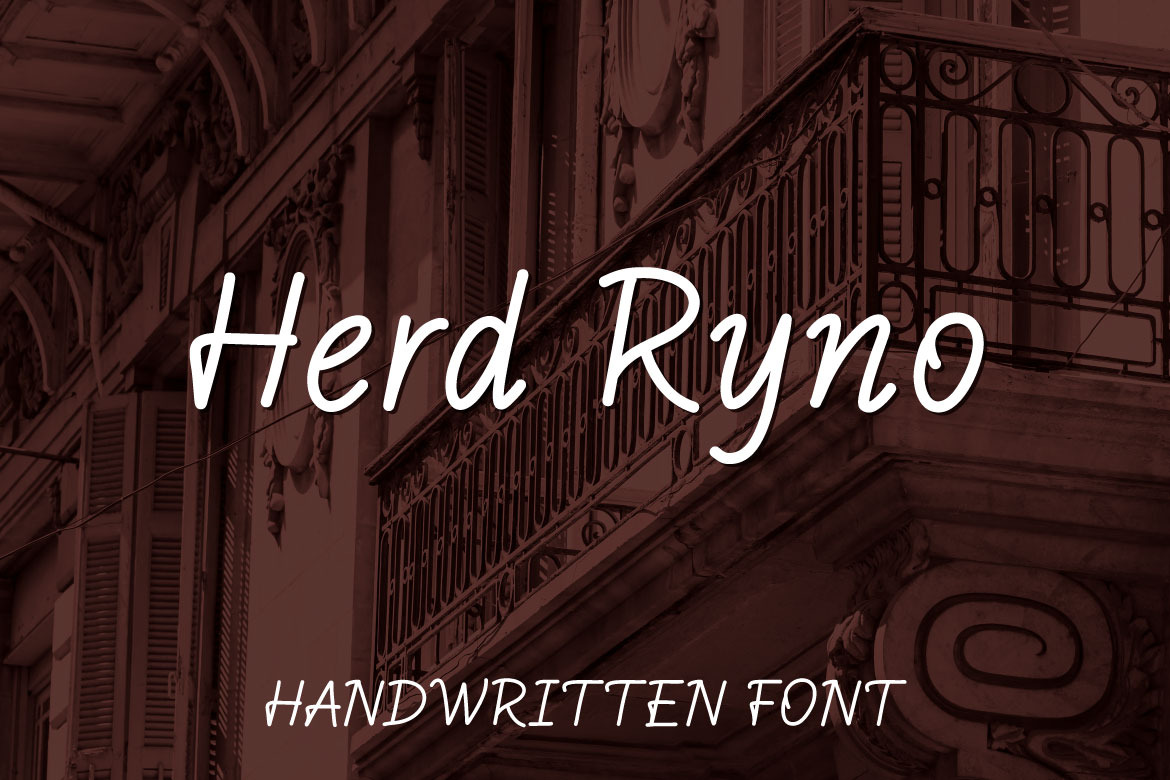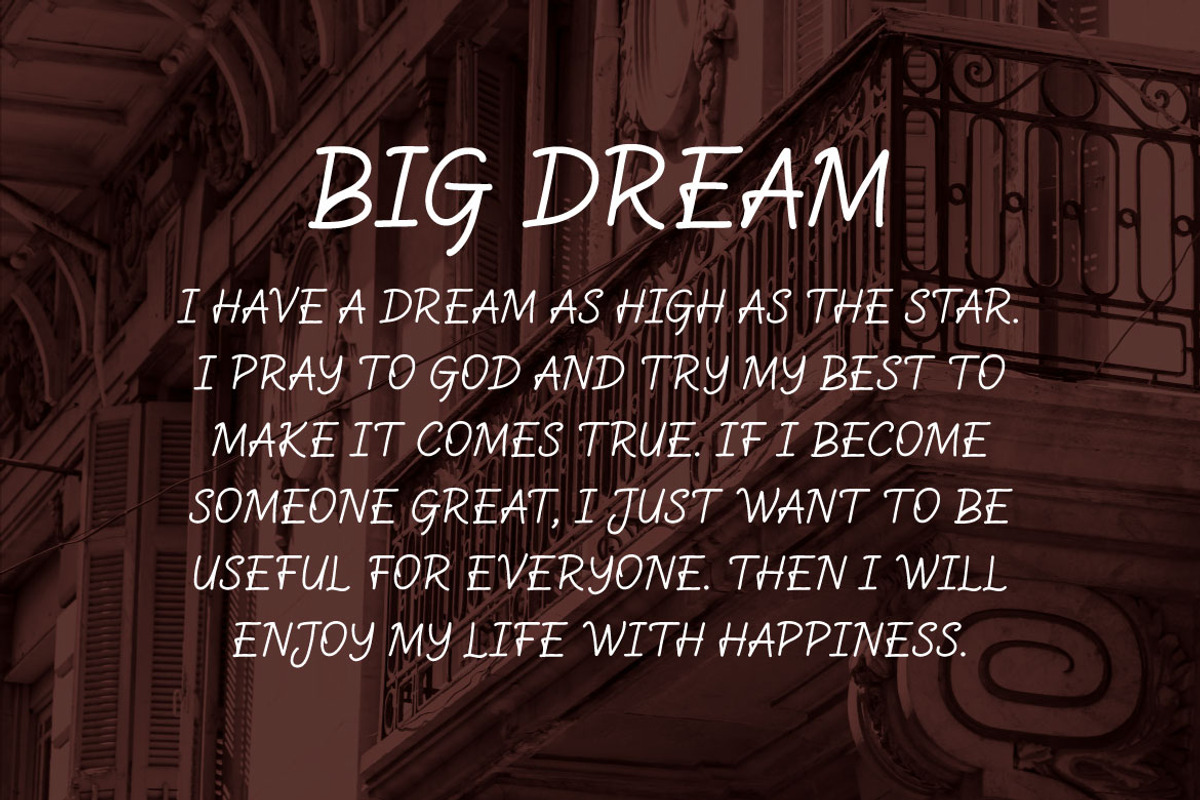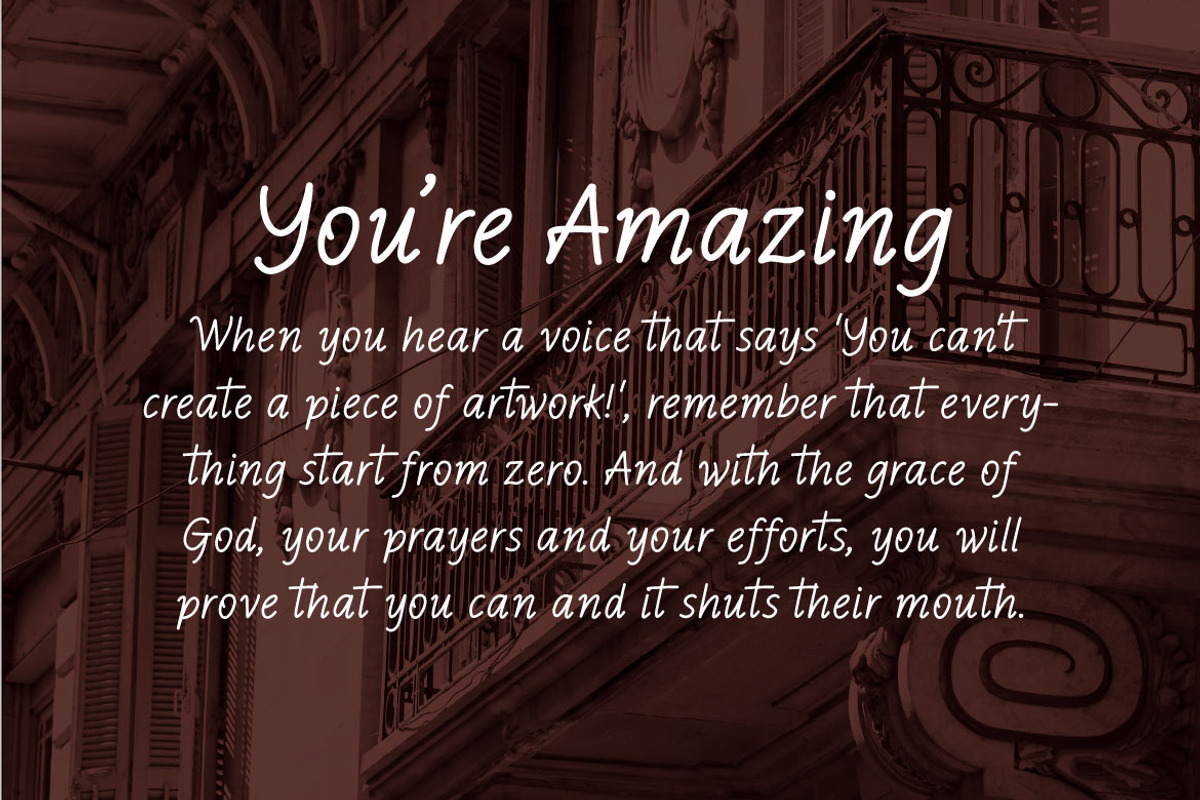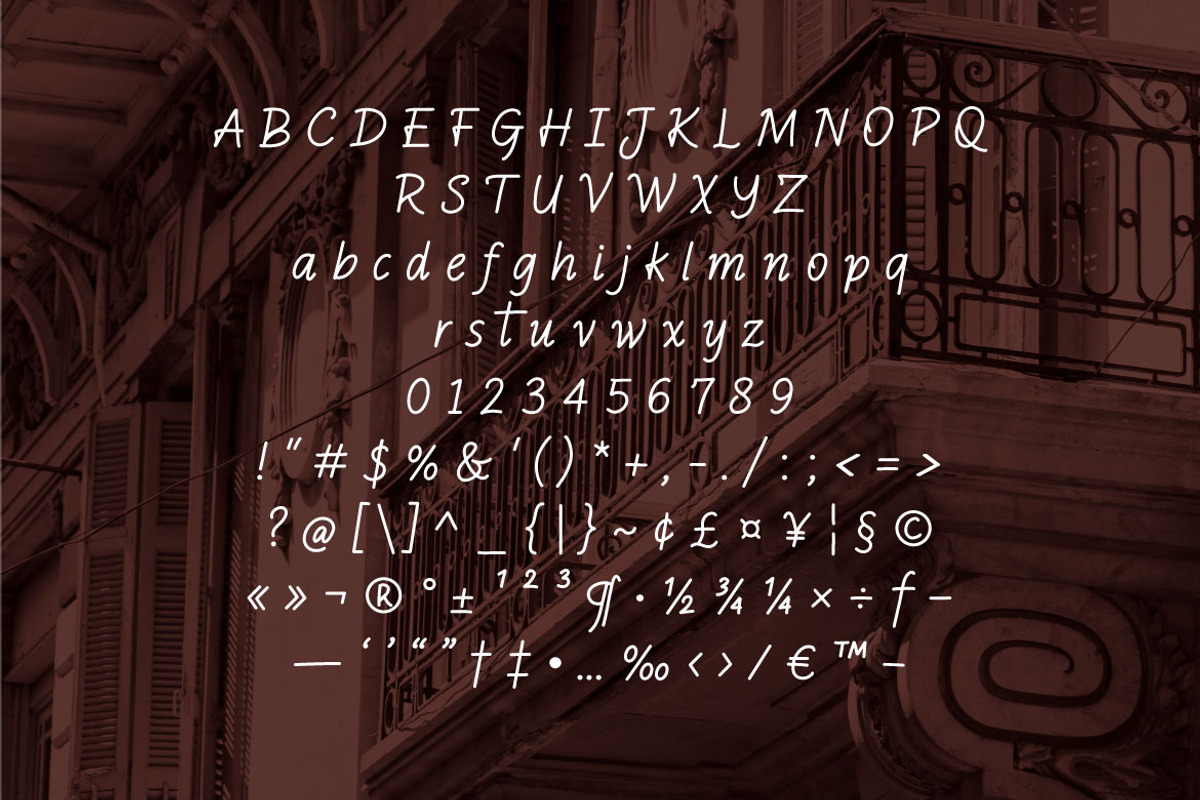
Herd Ryno - Handwriting Font
Hello! Herd Ryno is a simple handwritten font. Herd Ryno can be used in any works such as flyer, book title, advertisement, social media content, logo and many more.